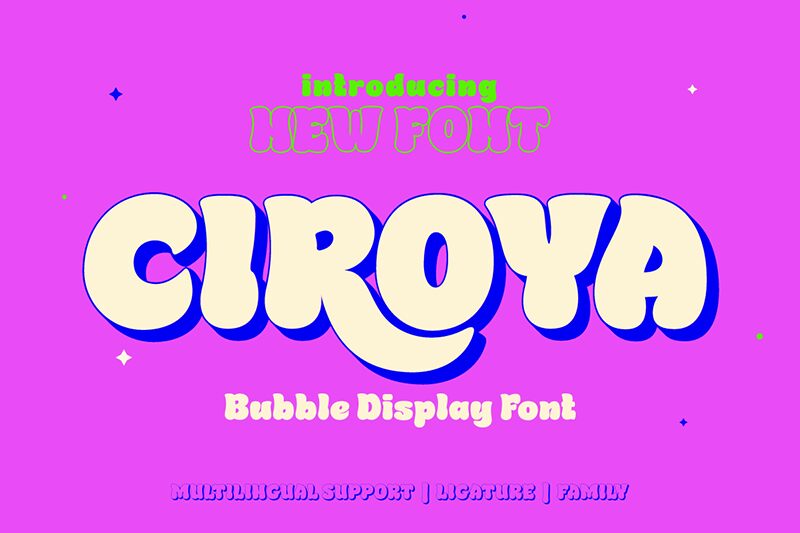
Ciroya font by Twinletter is a visually engaging display font that offers a groovy and bold style. With retro vibes and geometric influences, it blends classic aesthetic elements with modern design in every character. This free typeface has an impactful presence and a solid appearance that easily catches the eye of any viewer.
Ciroya is an outstanding choice for hip clothing brand designs, creative book covers, sign applications, packaging boxes, product labels, posters, and social media images. The font can be utilized additionally on websites, mobile apps pages, magazine ads layouts as well as flyers or brochures creations.